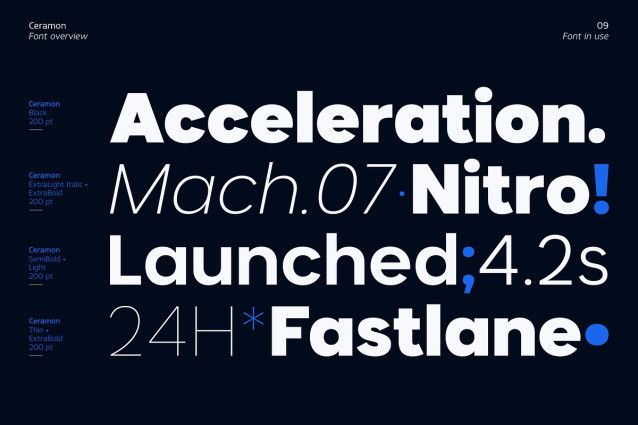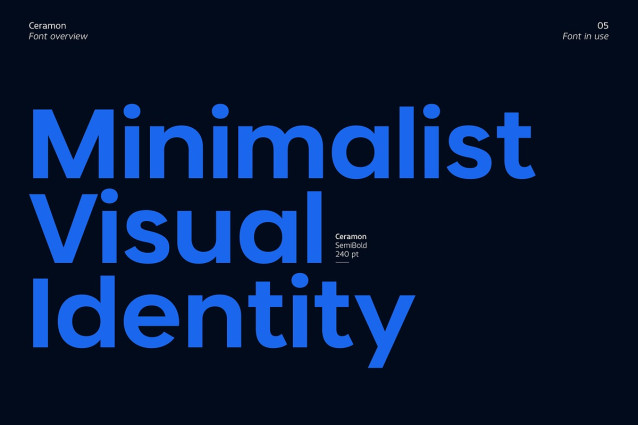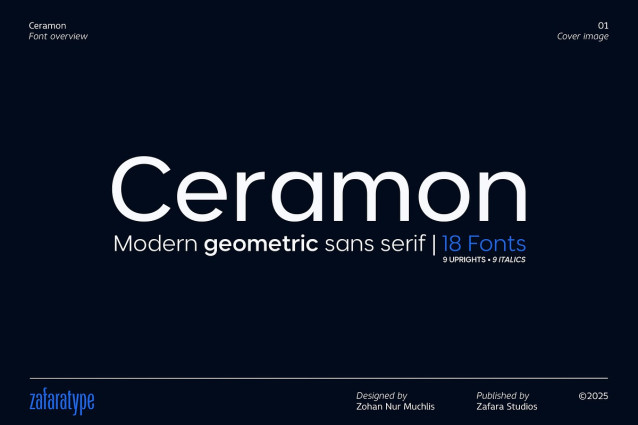
Ceramon Font
Ceramon Font is a modern geometric sans serif that blends minimalist structure with refined curves and meticulous detailing. Its clean, balanced letterforms ensure high legibility and lend a contemporary, versatile tone—ideal for branding, editorial, UI design, signage, packaging, and more.